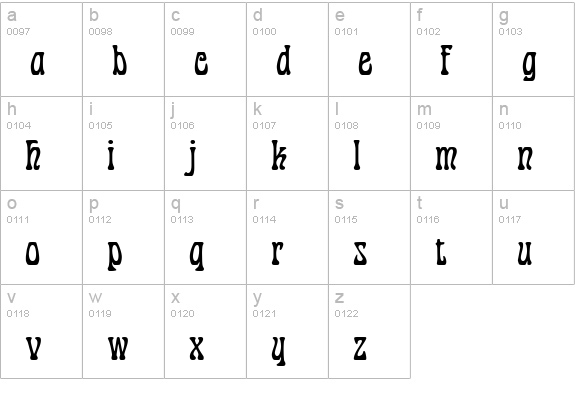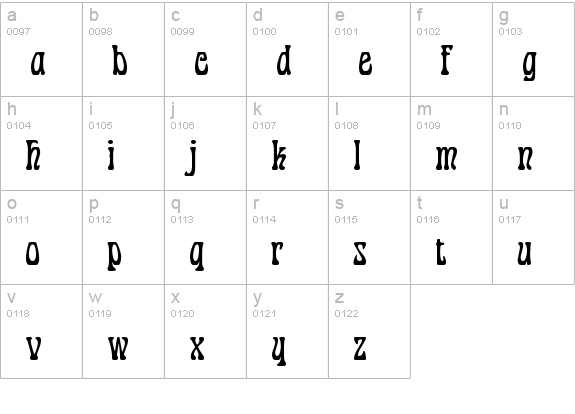
Pantagruelâ„¢ Font Details
Introducing Pantagruel™, a captivating and versatile font that will add a touch of elegance and sophistication to any design project. With its intricate and fluid letterforms, Pantagruel™ effortlessly combines modern aesthetics with a timeless appeal. This unique typeface is perfect for a wide range of applications, from logos and branding to editorial designs, packaging, and more. Its clean and legible characters make it ideal for both print and digital media, ensuring that your message is conveyed with clarity and style. What sets Pantagruel™ apart is not only its stunning visual appeal but also its accessibility. We are proud to offer this exceptional font to you free of charge. Yes, you read that right – Pantagruel™ is freely available to download at FontsMarket.com. By making this font freely accessible, we aim to empower and inspire designers, creatives, and enthusiasts alike, allowing them to bring their visions to life without any limitations. With Pantagruel™, you have the freedom to explore and experiment, unlocking endless possibilities for your creative endeavors. Featuring a wide range of weights and styles, Pantagruel™ offers versatility and flexibility, ensuring that it can adapt to any design concept or project requirement. Whether you're looking for a bold and impactful headline, a subtle and refined body text, or anything in between, Pantagruel™ has got you covered. So, why wait? Discover the beauty and potential of Pantagruel™ today. Download this exquisite font for free at FontsMarket.com and elevate your designs to new heights. Let Pantagruel™ be your trusted companion on your creative journey, and watch your projects come to life with grace and sophistication.